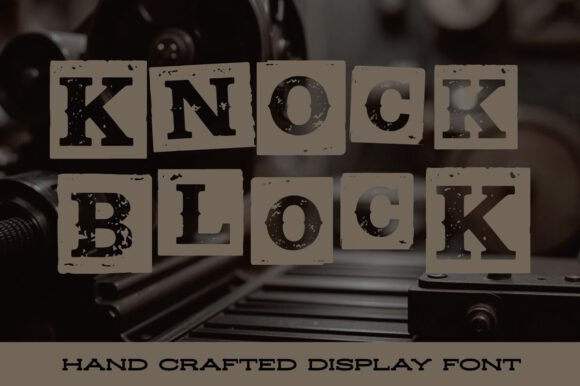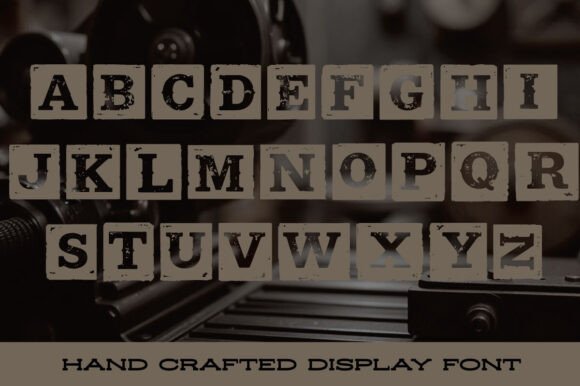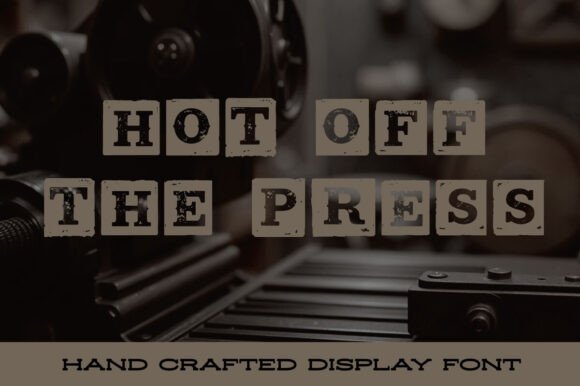
Knock Block Font
About the Knock Block Font
Get ready to be inspired by Knock Block Font, a fresh and dynamic typeface for modern creators. The Knock Block Font delivers a rugged, handcrafted display design with a distressed, blocky aesthetic. Its bold and textured style makes it perfect for posters, vintage branding, industrial designs, and bold statements. This versatile font adds character and grit to any creative project.
Knock Block Font’s strong personality shines in headlines, logos, and short impactful phrases. It excels in packaging design for products emphasizing craftsmanship or a vintage feel, and also works well for posters promoting events with a rugged or industrial theme. However, its bold, textured nature makes it unsuitable for body text or UI elements where legibility is paramount. Avoid using it in long-form content.
Pairing Knock Block with a clean sans-serif like Montserrat for body copy provides a strong contrast, balancing the font’s boldness with modern readability. Alternatively, a classic serif like Garamond adds a touch of sophistication, complementing its vintage appeal. For a more playful approach, consider a rounded geometric sans-serif such as Futura.
The overall personality is undeniably bold and rebellious, conveying a sense of strength and authenticity. Brands targeting a mature, discerning audience seeking a rugged, handcrafted aesthetic will find this font particularly effective.
Knock Block Font Example